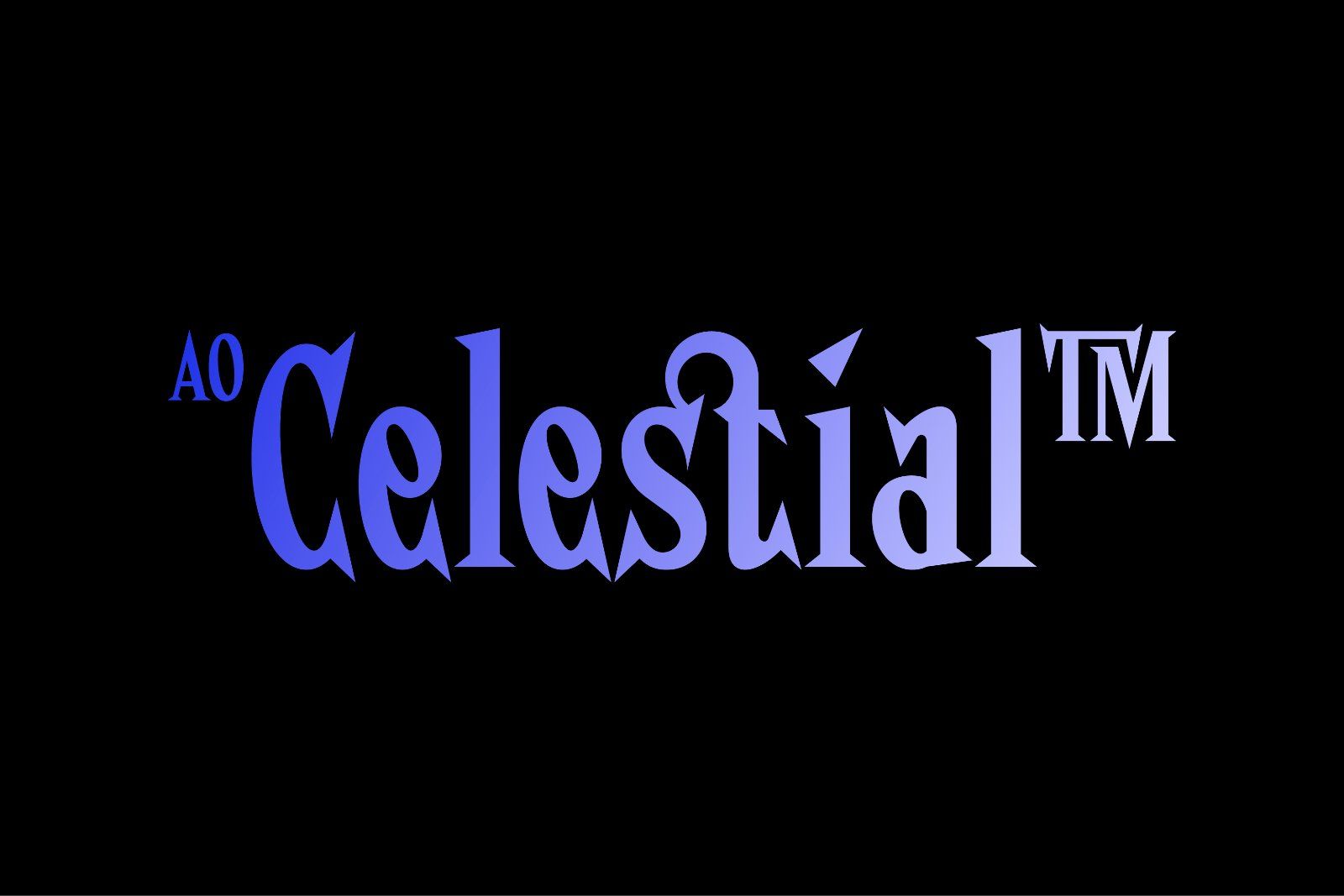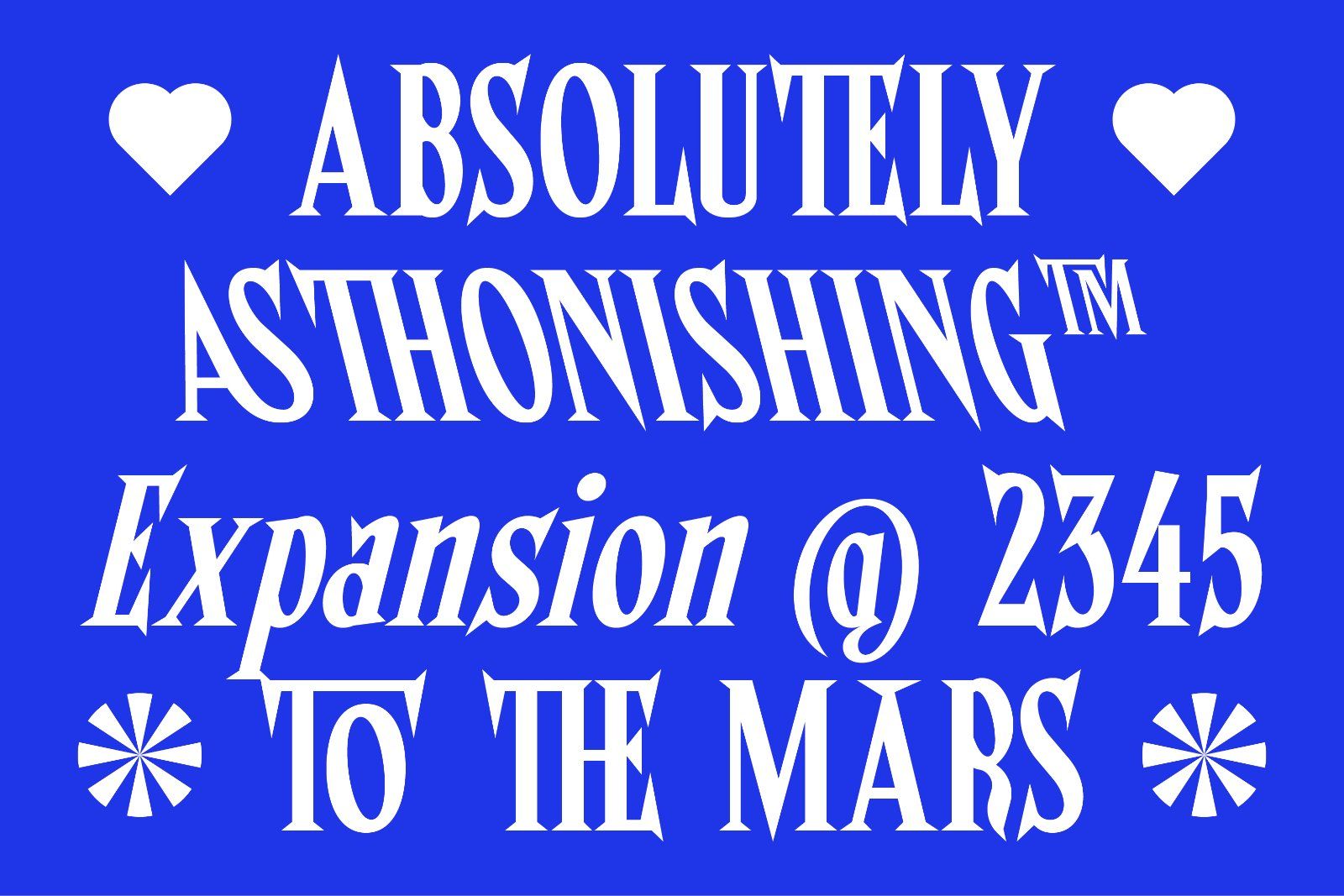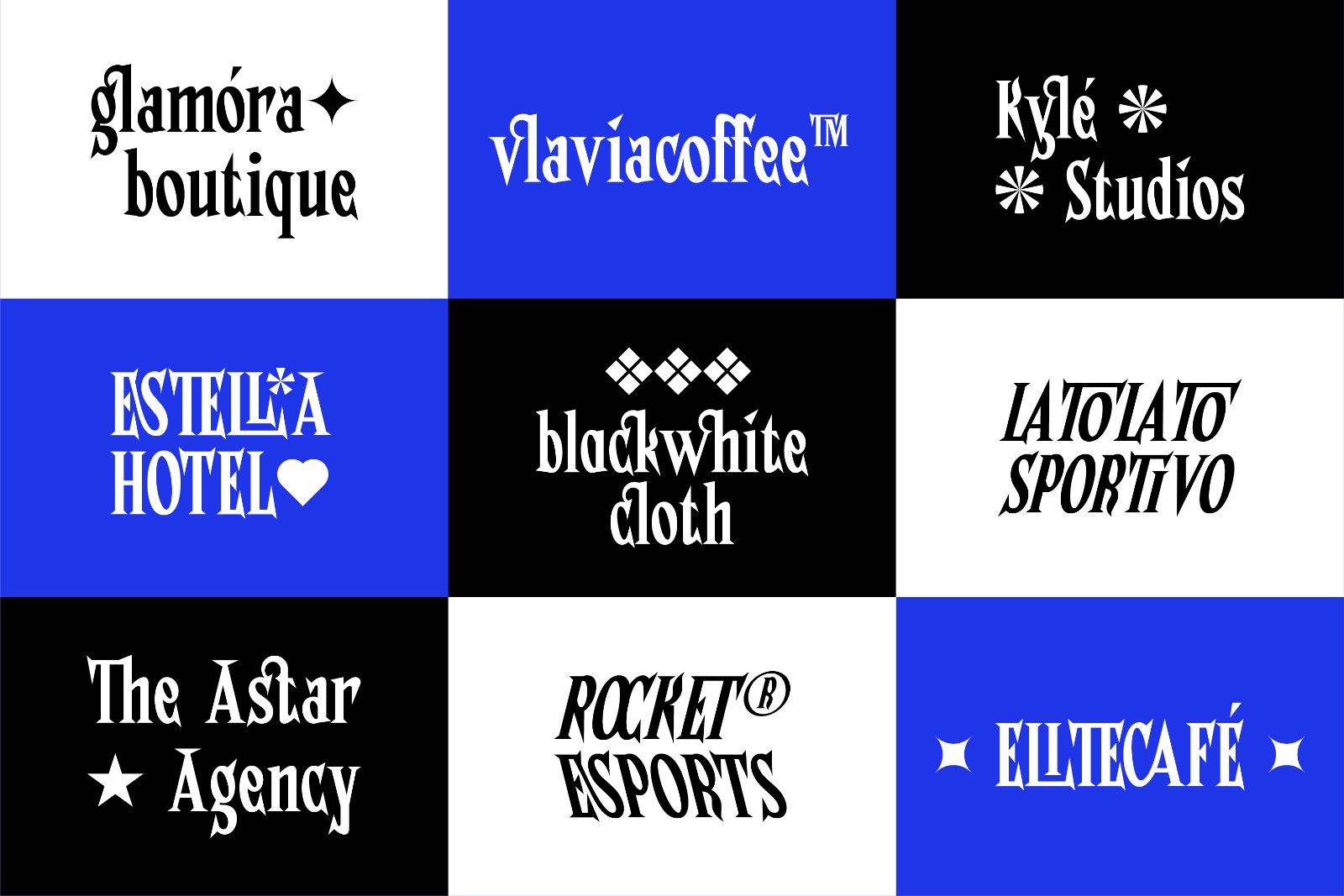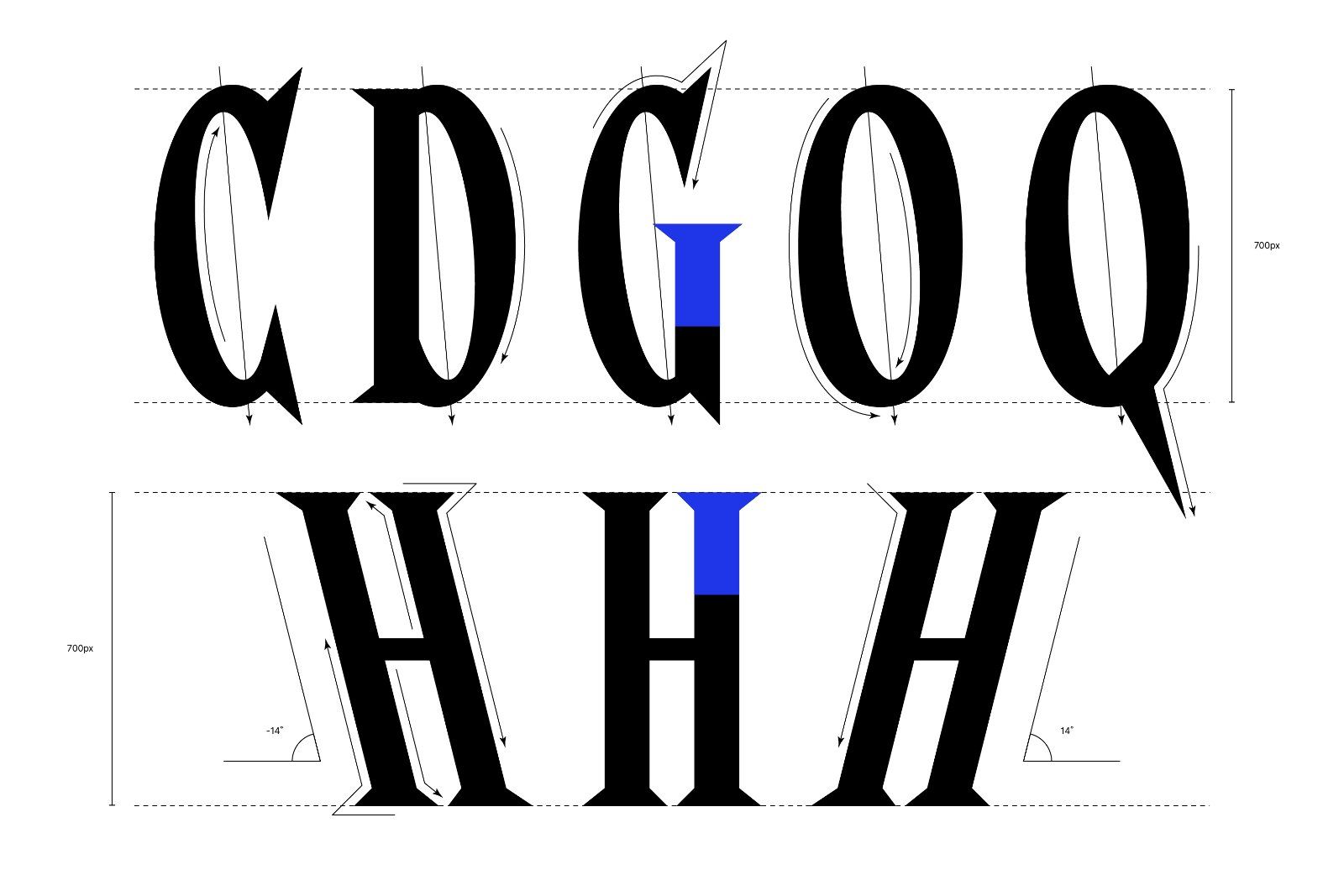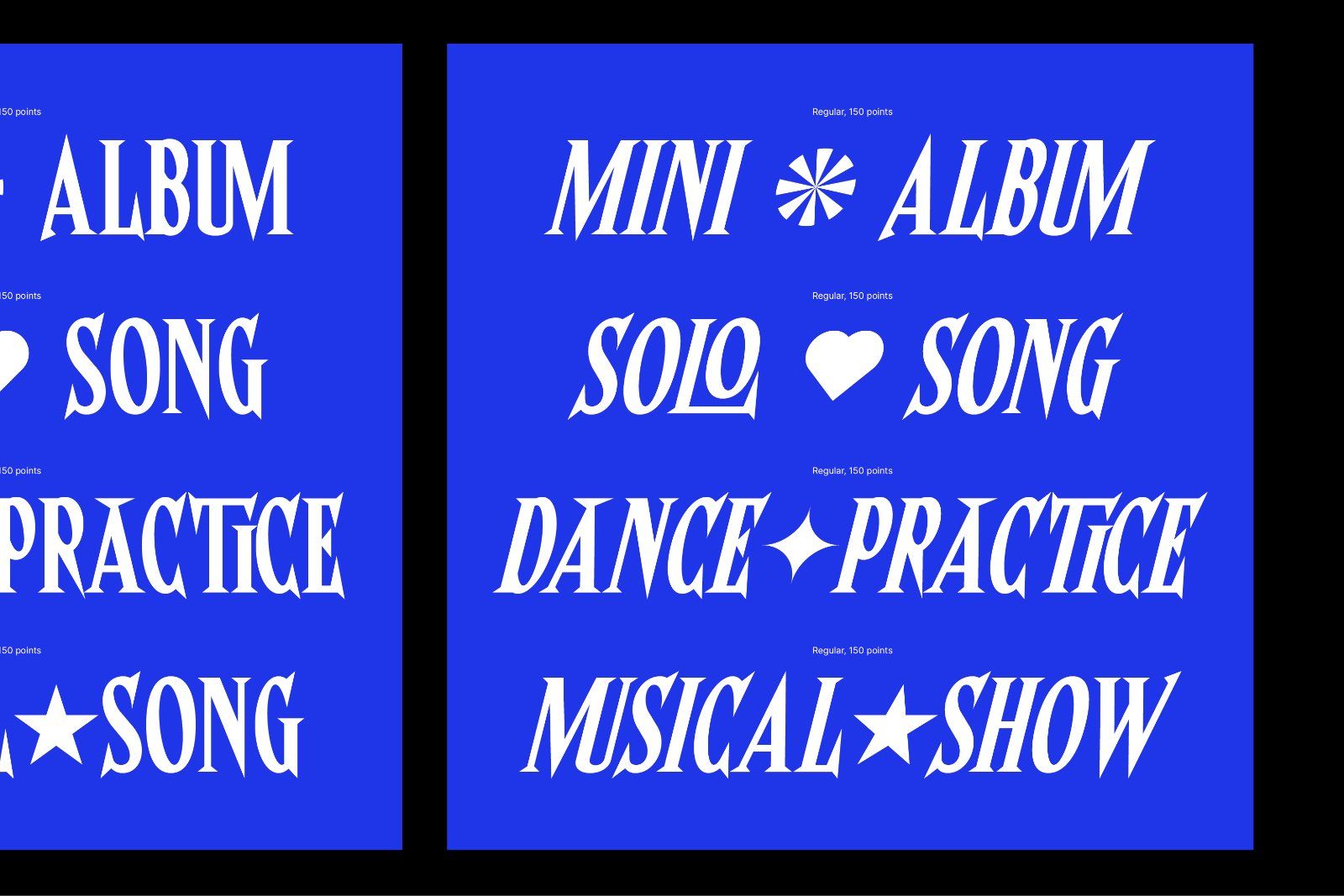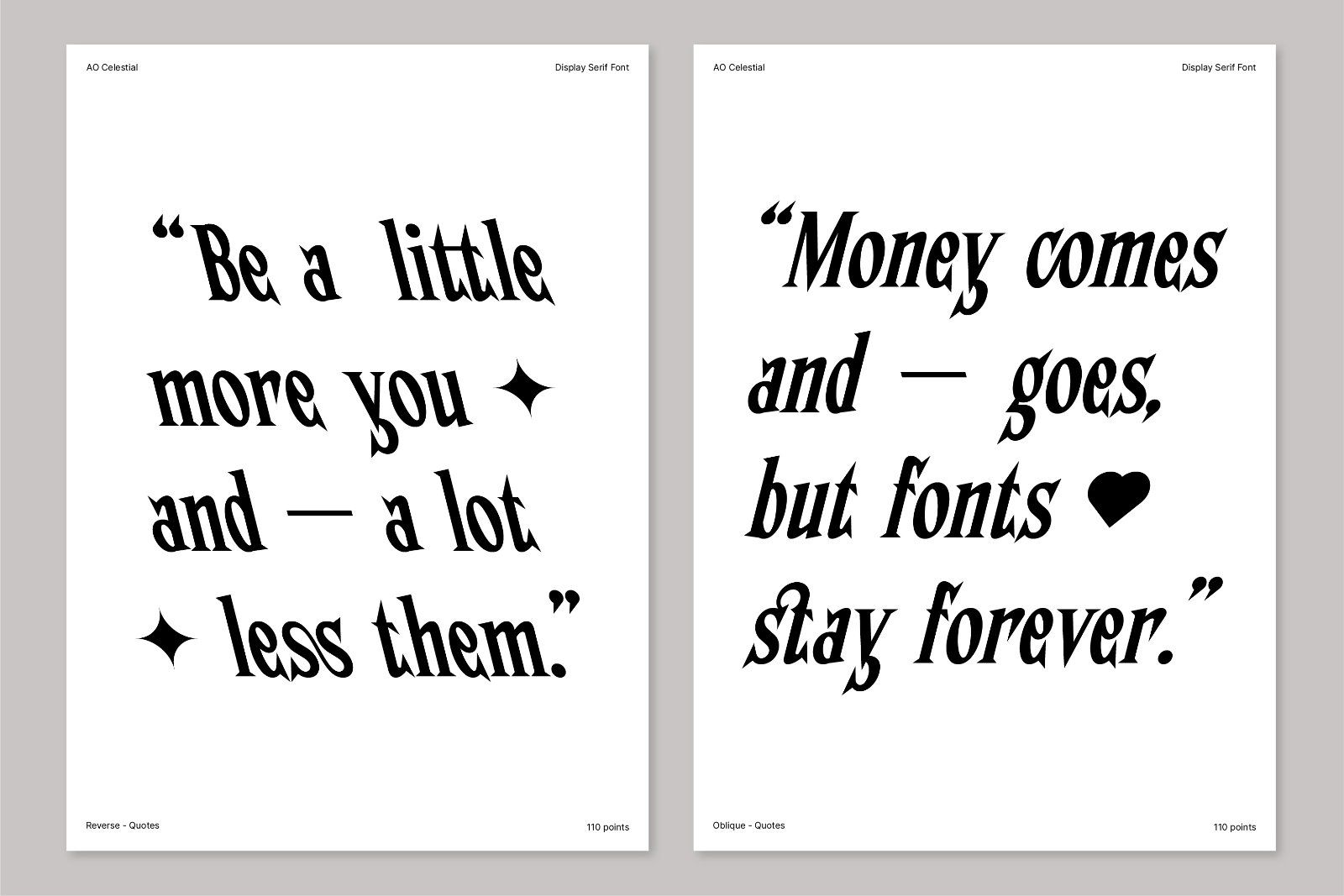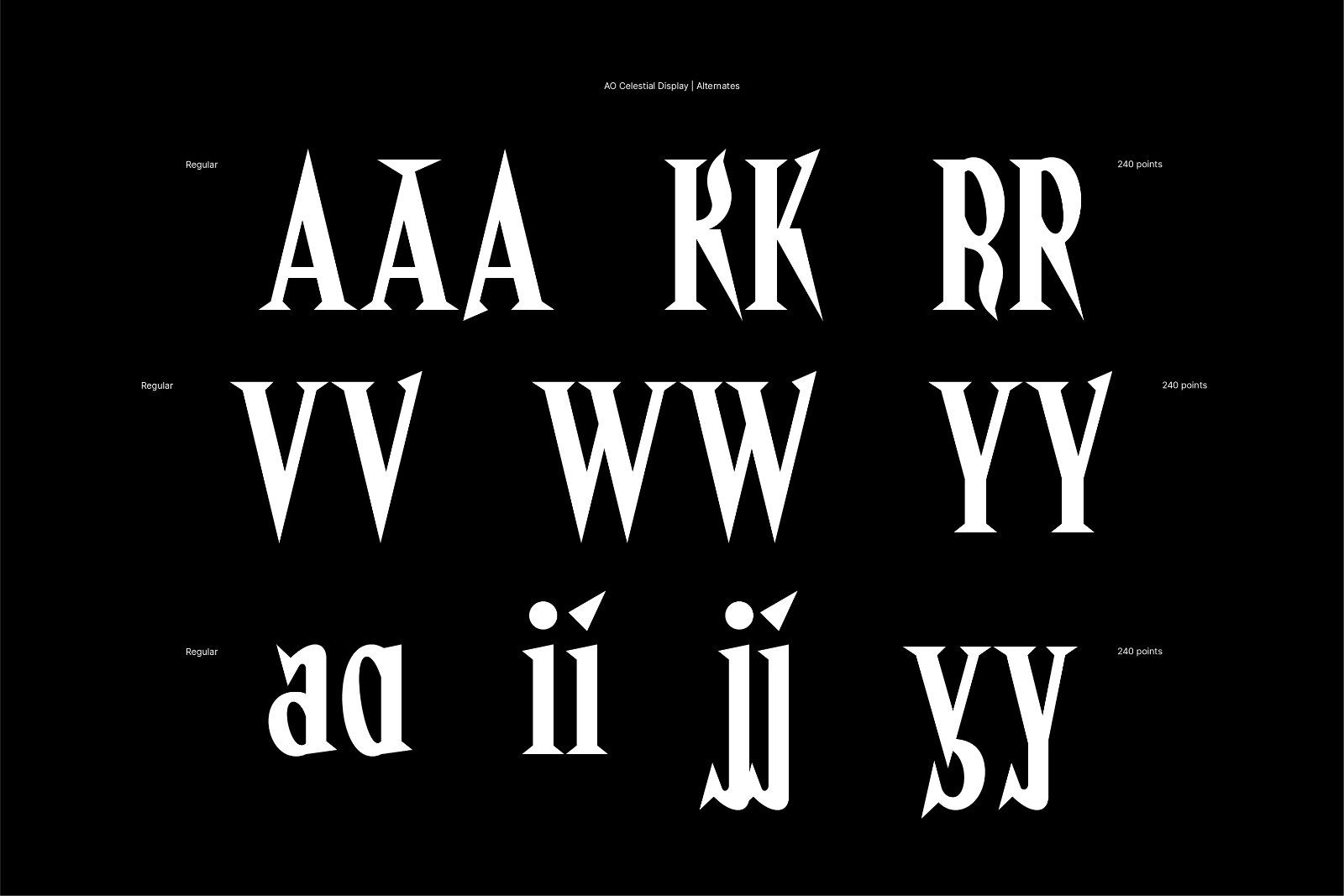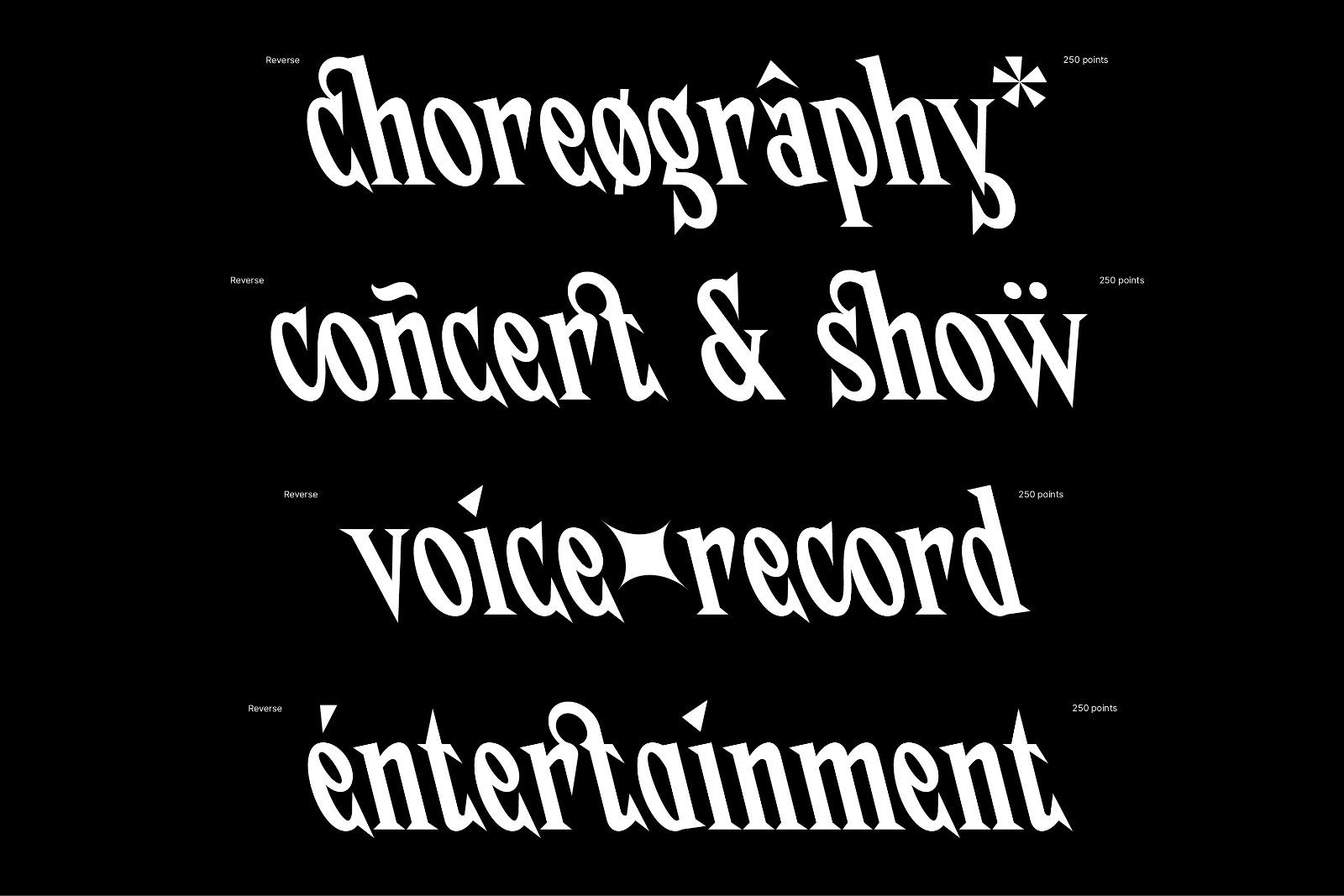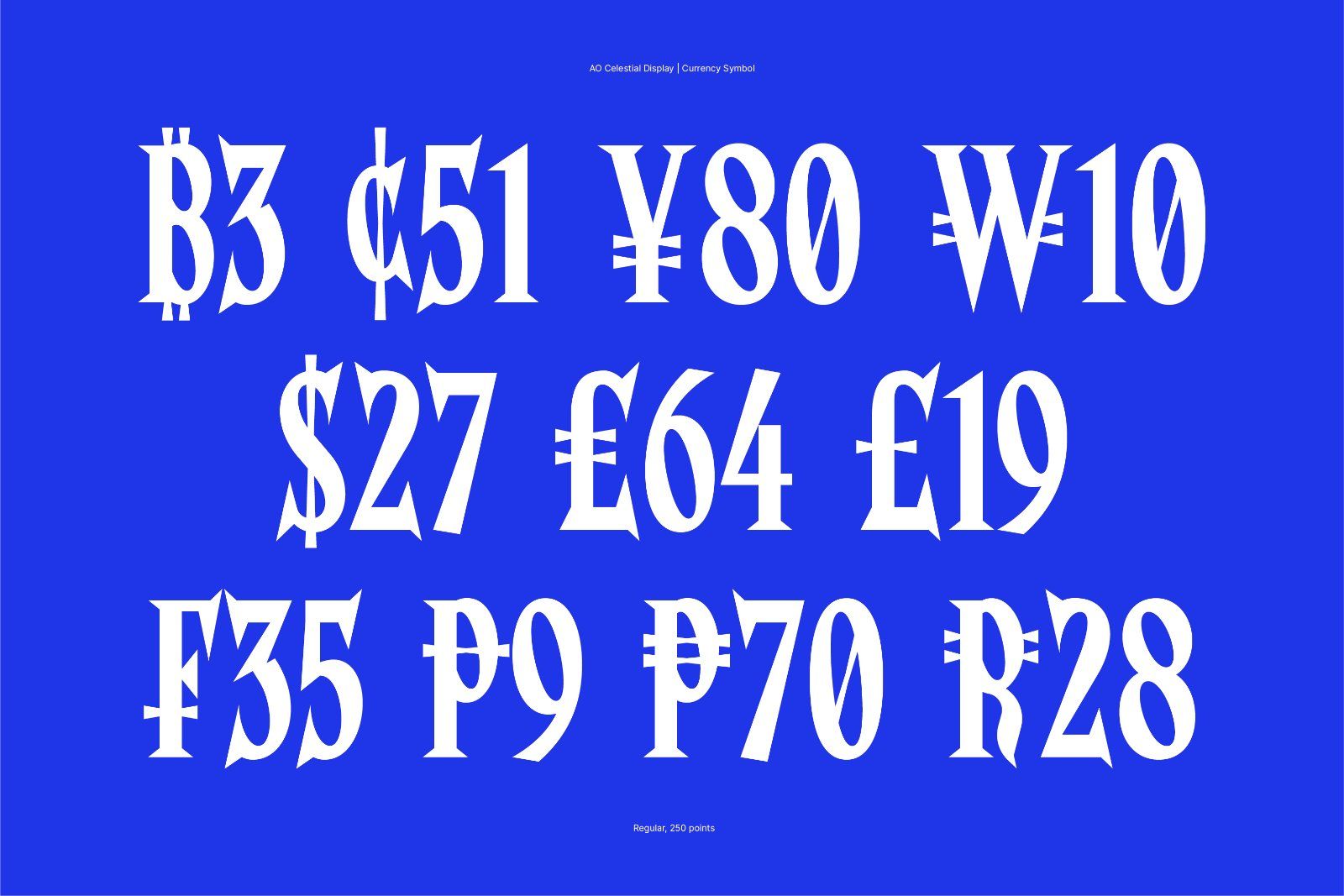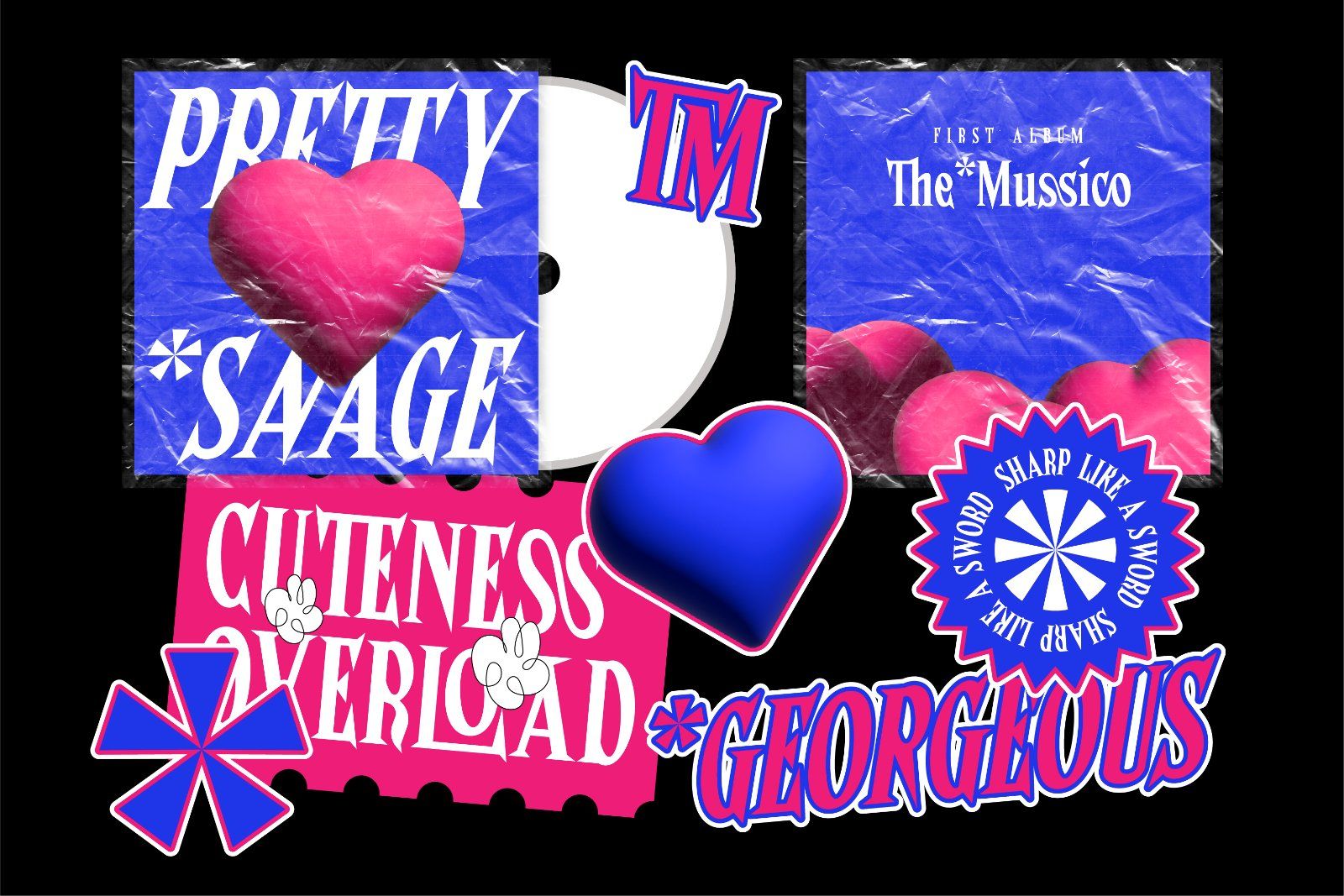
Celestial is a stylish and modern display serif font. contains 3 font styles, regular, oblique and reverse. included Stylish Ligatures, Alternates and multilingual, which makes Celestial different.
Celestial has great visual impact and is perfect for display use in editorial design, headlines, web, branding, posters and many others.